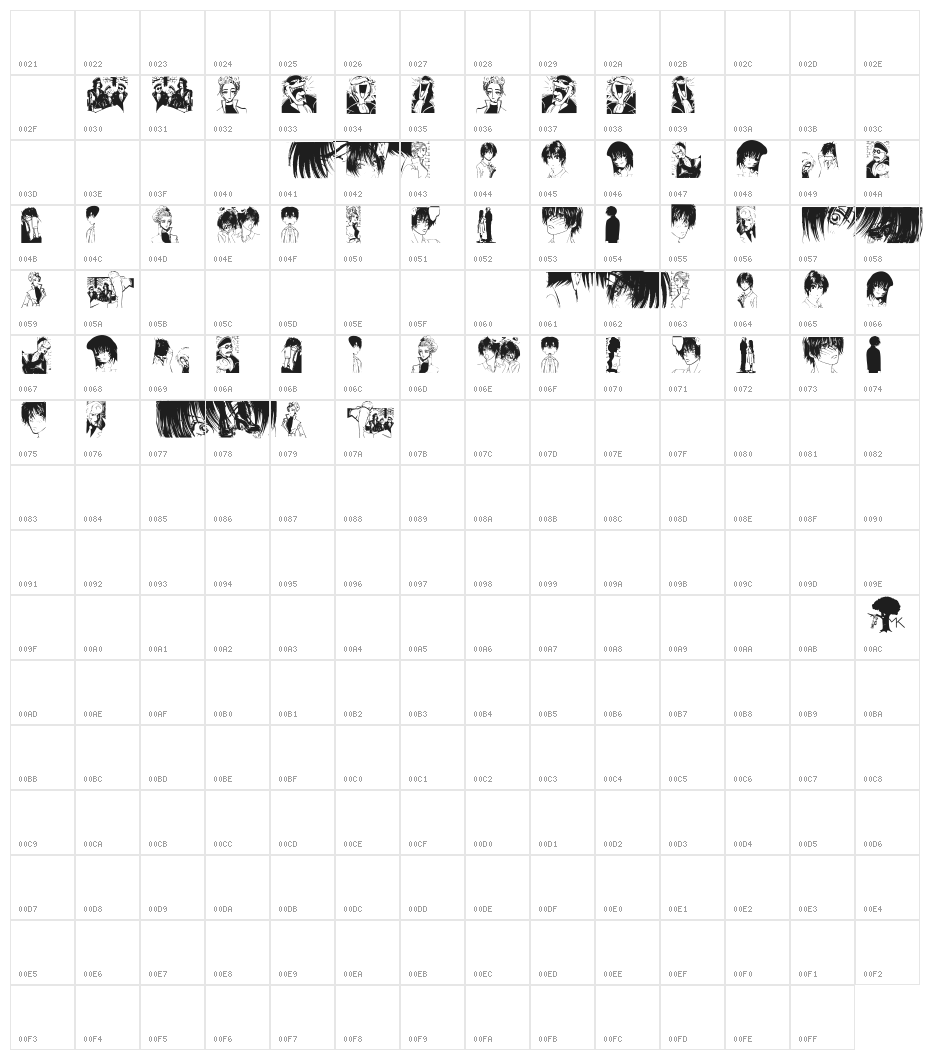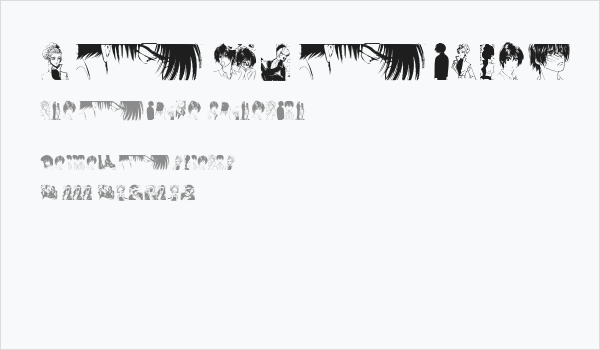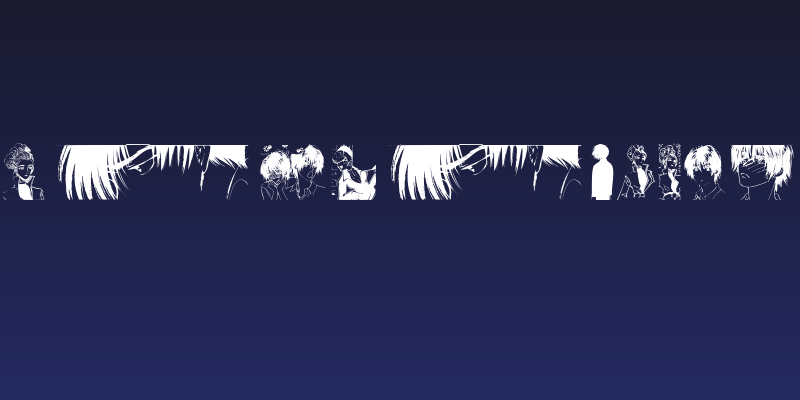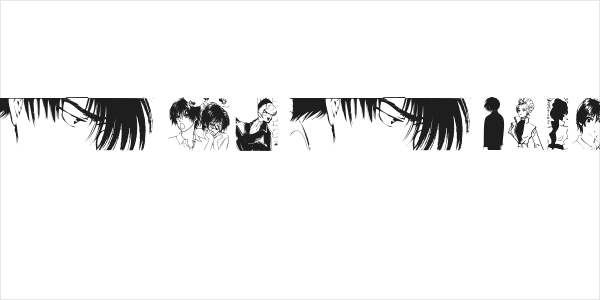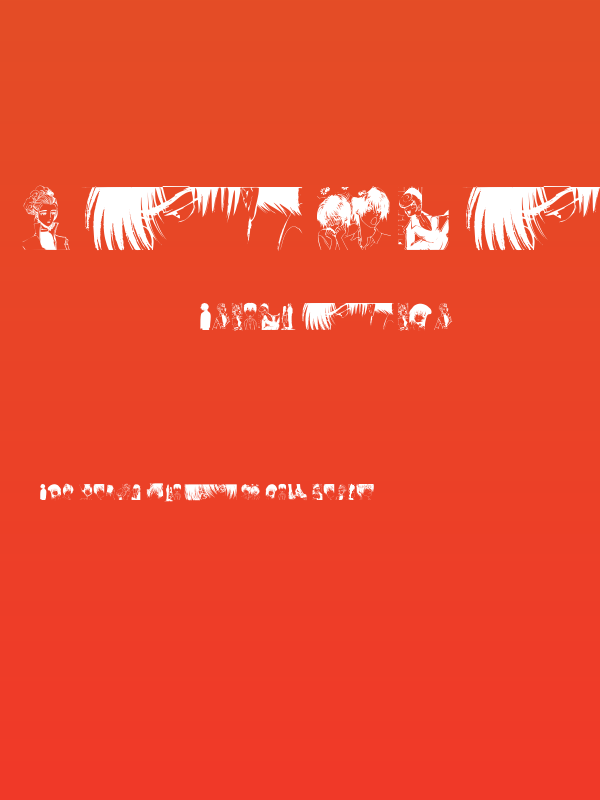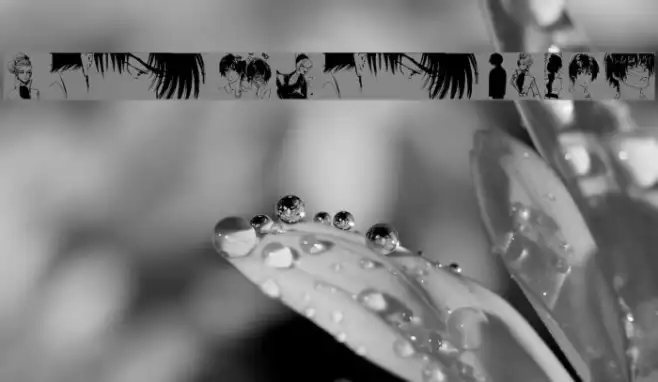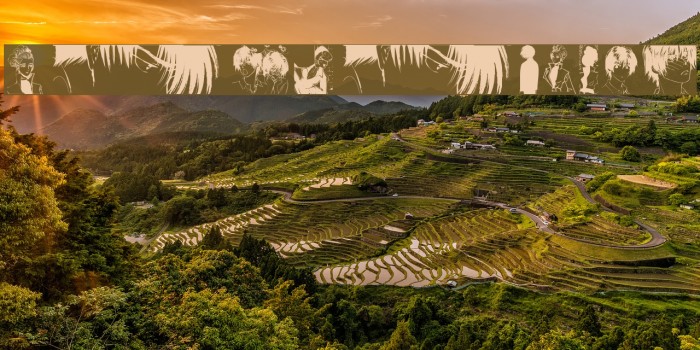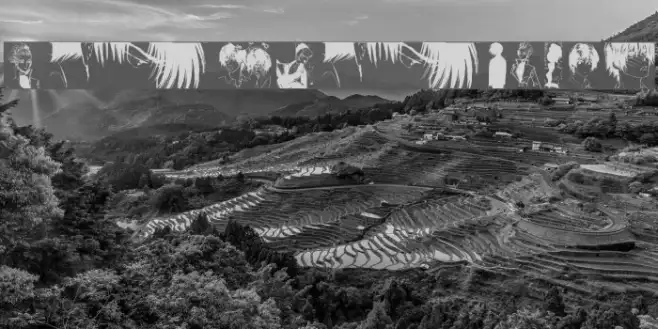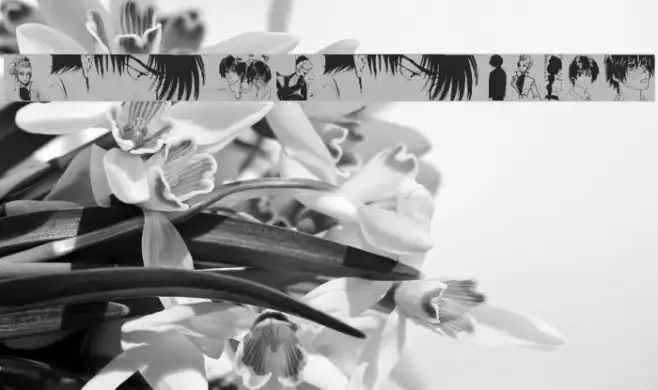
MangaTypes Font
MangaTypes Description
A highly decorative and illustrative font composed of manga-style character illustrations for each glyph, featuring expressive faces and dynamic poses in black and white line art.
| Overall Style | Decorative, Playful, Thematic |
| Use Case | Headlines, Logos, Posters, Themed graphics |
| Proposed Projects | Comic book titles, manga-themed posters, youth event flyers, creative branding for pop culture events. |